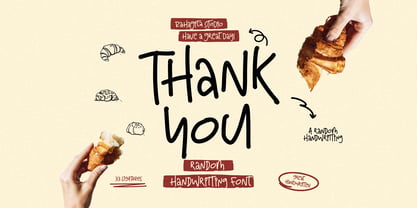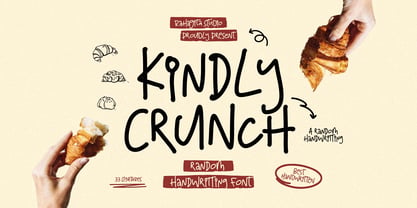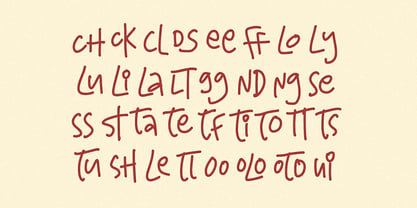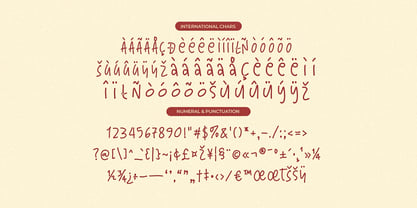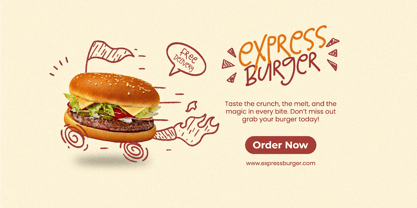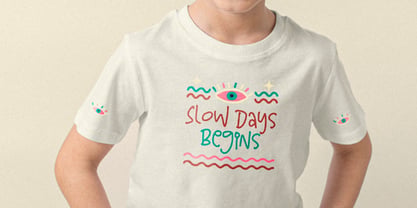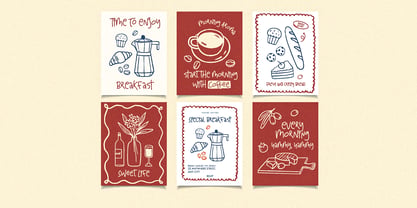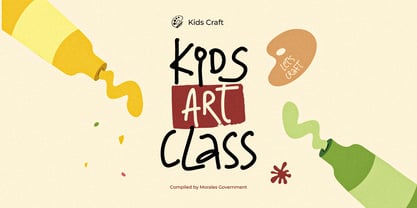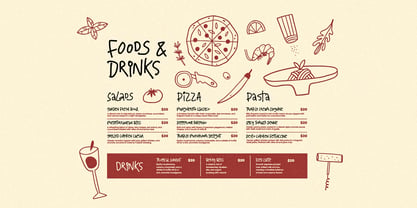
Kindly Crunch
by RahagitaType
The Kindly Crunch Font Family was designed by Setiadi Rahagita and published by RahagitaType. Kindly Crunch contains 1 styles. More about this family
Introducing Kindly Crunch — a random-style handwriting font full of charm and personality! This font captures the warmth of natural handwriting with a playful and casual twist — perfect for food branding, café menus, packaging, children’s designs, and creative illustrations. Featuring 33 unique ligatures and multilingual support, Kindly Crunch brings a friendly, human touch to every word you type. It blends natural imperfection with easy readability, making it ideal for cheerful and cozy design projects